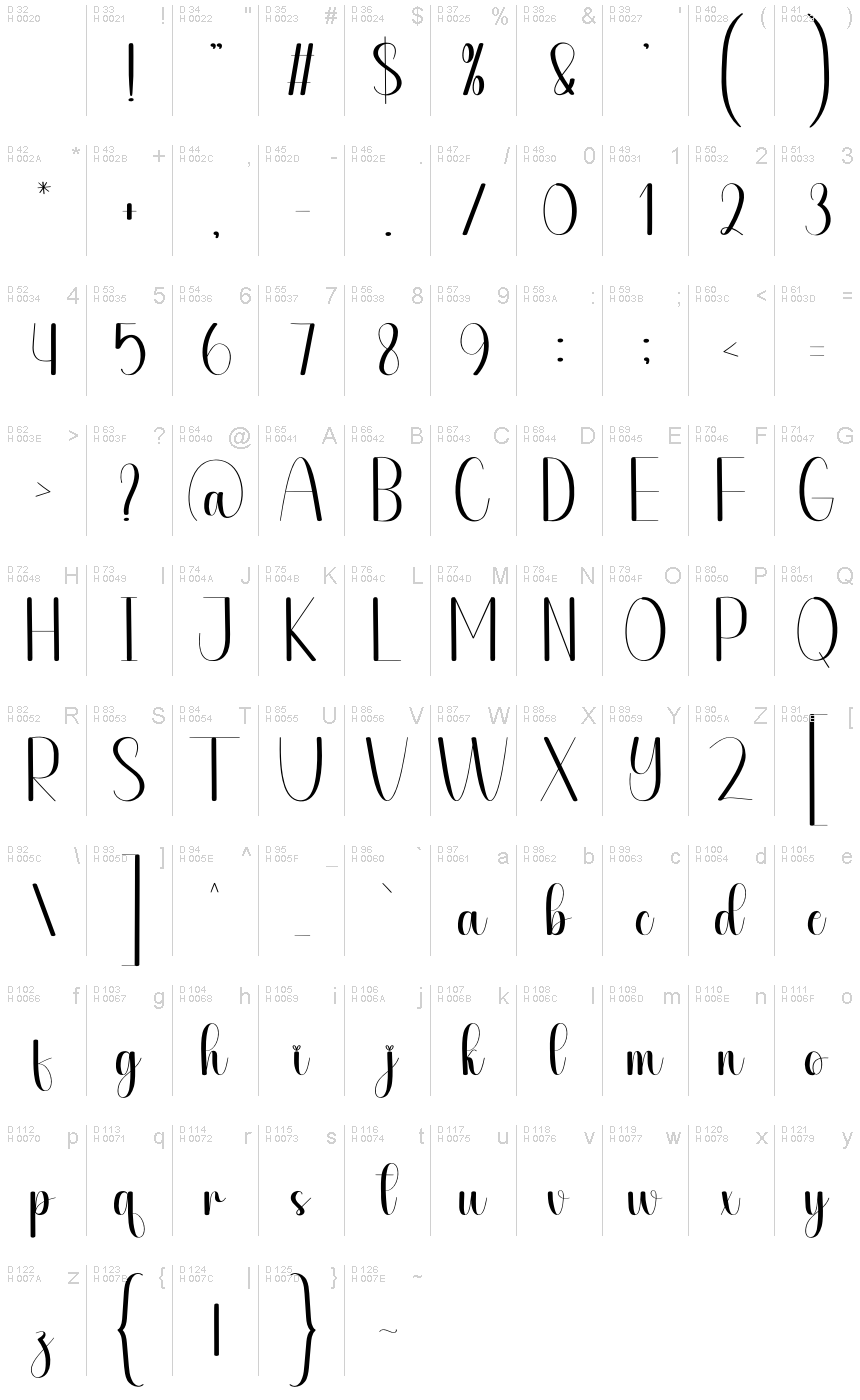
Outward
Outward font, designed by Scratchones, exudes a captivating calligraphic elegance that draws the eye with its graceful curves and sweeping strokes. The refined flow of its letters conveys an expressive charm, beautifully merging classic artistry with contemporary flair.
Characterized by a delicate weight, it maintains an airy lightness that enhances its sophistication. Its standout features make it perfect for designing invitations, branding materials, or any project seeking to evoke a personal touch and artistic nuance.
With its unique style and versatile appeal, Outward is ideal for conveying warmth in wedding invitations or adding a whimsical feel to creative projects. This enchanting font invites viewers to appreciate its artistry while seamlessly fitting into diverse design contexts.